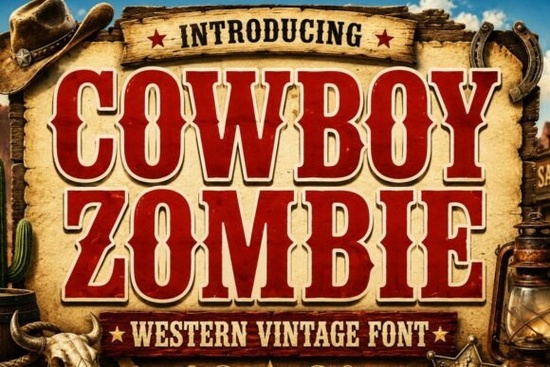
If you need a Western display typeface that feels like it was pulled straight off a wanted poster, the Cowboy Zombie Font is worth a close look. It's a bold, slab-style font with distressed vintage details that give any design a rugged frontier atmosphere. Whether you're working on branding, merchandise, or social media graphics, this typeface brings that old-saloon, sheriff-badge energy without looking overdone.
What Makes a Western Display Font Work Well?
Not every bold font captures the Western aesthetic. A good frontier-inspired typeface needs a few specific qualities:
- Strong, blocky letterforms Slab serifs and heavy strokes that read clearly at a distance
- Distressed or weathered texture A worn look that feels aged and authentic
- Classic Americana details Subtle references to vintage signage, rodeo posters, and old saloon lettering
- Versatility across sizes Enough clarity for both large headlines and smaller labels
Cowboy Zombie checks all these boxes. The distressed texture on each character gives designs an immediate sense of history, while the strong slab structure keeps everything readable. It doesn't try to be subtle and that's exactly the point.
Who Should Use Cowboy Zombie Font?
This font is built for anyone creating designs that need a bold, rustic character. Here are some specific audiences that tend to get a lot of use out of Western display typefaces like this one:
- Print-on-demand sellers T-shirts, mugs, tote bags, and posters with ranch, rodeo, or country themes
- Small business owners Restaurants, BBQ joints, breweries, and bars looking for authentic Western branding
- Crafters using Cricut or Silhouette Stickers, decals, wall art, and party decorations with a frontier feel
- Event designers Invitations, signage, and graphics for Western-themed parties, weddings, or festivals
- Social media creators Thumbnails, quote graphics, and promotional posts for country music, outdoor lifestyle, or Americana content
If your audience responds to nostalgia, adventure, or rugged aesthetics, a font like this does a lot of the heavy lifting for you.
What Can You Actually Make With It?
The versatility of this typeface goes beyond just "cowboy stuff." Here's a practical breakdown of project types where it performs well:
- Headlines and logos Its heavy weight makes it perfect for display sizes where you need instant impact
- Restaurant menus and signage Especially for steakhouses, BBQ spots, and rustic eateries
- Beer and beverage labels The vintage texture pairs naturally with craft brewery aesthetics
- Country music posters and festival graphics Concert promos, album covers, and event flyers
- Apparel and merchandise Hat designs, boot branding, ranch logos, and rodeo gear
- Rustic home décor Printable wall art, wooden signs, and farmhouse-style pieces
- Sublimation products Tumblers, pillows, blankets with a vintage Western vibe
- Invitations and stationery Western weddings, barn parties, or country-themed celebrations
It works for both digital and print projects, which means you can use it across your entire product line without worrying about consistency.
How Does It Compare to Other Display Fonts?
Cowboy Zombie fits into the display fonts category alongside typefaces that prioritize personality over neutrality. But it occupies a very specific lane vintage Western that sets it apart from most display fonts.
For example, if you need something completely different in mood, Pinky Pop takes a playful, bubbly approach that works for kids' products and fun branding. You can explore more playful display options if that fits your project better.
If you want bold energy but with a modern street-style edge rather than a Western one, Choks is worth checking out it's a strong urban display font with heavy impact.
On the softer side, Sunny Muff offers a cheerful, rounded look that's better suited for lighthearted and friendly designs.
And if you like the dark, edgy vibe but want something more horror-focused than Western, Zombora is a horror-inspired display font with a creepy, atmospheric style.
Cowboy Zombie stands out because it commits fully to the Wild West aesthetic. It doesn't try to be a general-purpose display font it's purpose-built for that rugged, vintage frontier look.